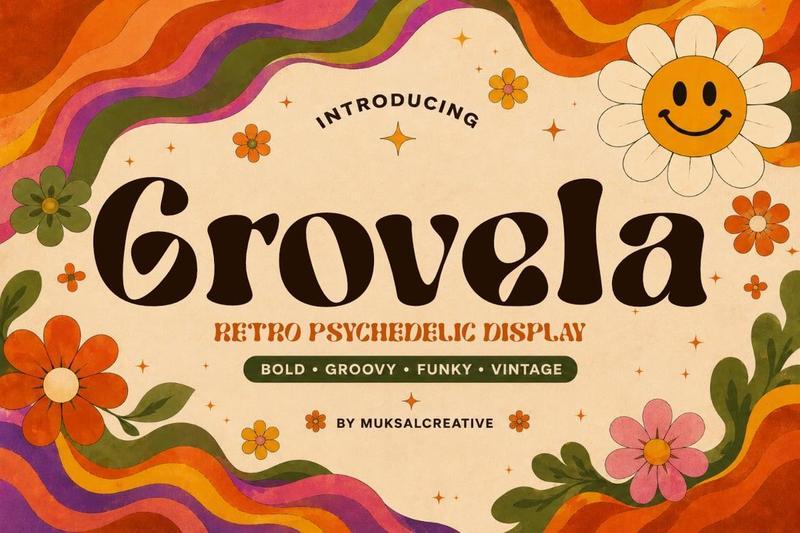
GROVELA is a bold retro psychedelic display font inspired by the vibrant visual culture of the 60s and 70s. Featuring groovy curves, funky shapes, and expressive letterforms, this typeface delivers a nostalgic yet artistic personality perfect for standout creative projects.
Designed for eye-catching typography, GROVELA works beautifully for poster designs, album covers, branding, packaging, social media graphics, editorial layouts, logo design, festival artwork, and creative display compositions.
Its vintage psychedelic aesthetic brings strong visual energy into every project while maintaining readability and decorative charm. Whether you are creating retro-inspired branding or experimental visual artwork, GROVELA adds a unique groovy character to your typography collection.
Features:
* Uppercase & Lowercase
* Numbers & Punctuation
* Multilingual Support
* Ligatures & Alternates
* Retro Psychedelic Style
* Funky Decorative Letterforms
* Vintage 70s Aesthetic
* Display Typeface